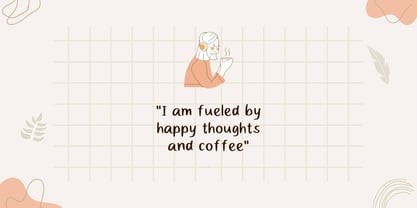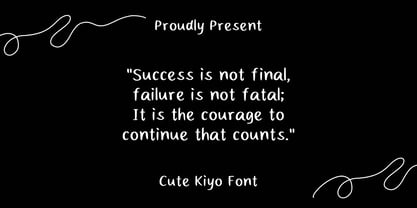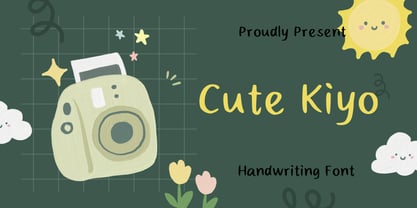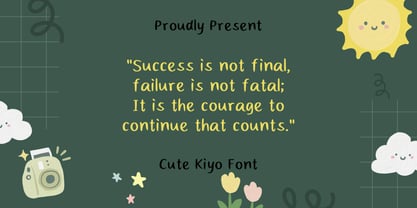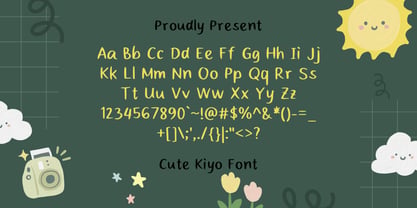
Cute Kiyo
by Sidkia Fonts
The Cute Kiyo Font Family and published by Sidkia Fonts. Cute Kiyo contains 1 styles. More about this family
Cute Kiyo is a playful handwritten font with a soft, hand-drawn look that brings warmth, charm, and a touch of whimsy to any design. Its rounded letterforms and natural strokes create a friendly, cheerful feel, making text both engaging and easy to read.
Perfect for children’s projects, birthday invitations, greeting cards, stickers, planners, social media graphics, product packaging, quotes, and creative branding. Cute Kiyo adds a sweet and delightful personality that makes every design feel more fun, approachable, and memorable.